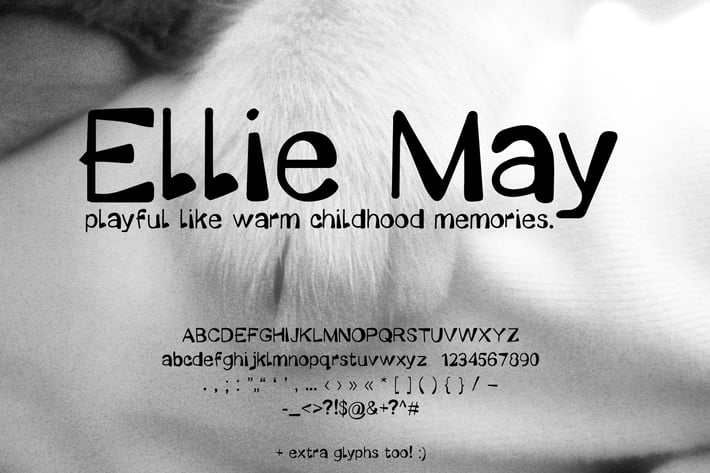
Ellie May | Cute Font Handwriting (Bold Display)
Introducing Ellie May, a quirky cute handwriting font. If you're looking for an aesthetic font that's varied and a little playful, this one might be the display font for you. It can be dressed up or comfy and informal. It can even work well at some smaller sizes.
Every letter was lovingly drawn by me. This cute font is dedicated to the memory of a dear childhood friend and all the wonderful times we had together. Rest in peace, buddy.